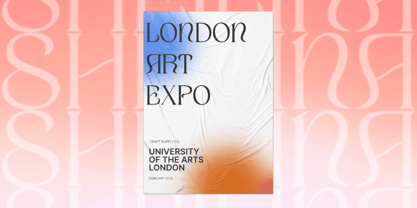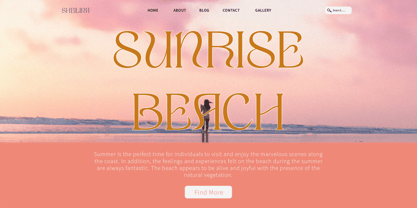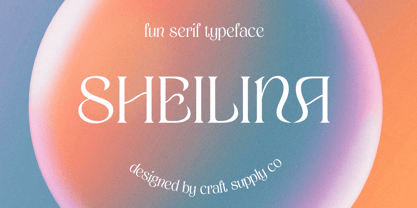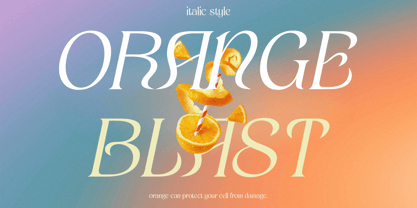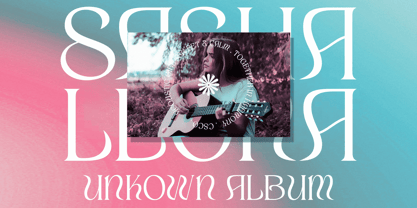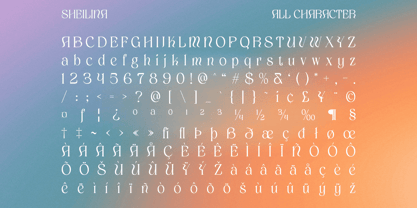
Sheilina
by Craft Supply Co
The Sheilina Font Family was designed by Trio Nazzar Saputra, Wahyu Hadi Yuana and published by Craft Supply Co. Sheilina contains 2 styles and family package options. More about this family
Sheilina Font: A Playful Take on Art Nouveau Inspired by Art Nouveau Sheilina draws inspiration from the Art Nouveau movement, embracing its flowing and organic forms. The font captures the display essence of Art Nouveau’s unique aesthetic with a modern twist. Distinctive Flow and Elegance Sheilina features a distinct flow and elegance that sets it apart. Its graceful curves and intricate details add a touch of sophistication to any design project, making it ideal for various creative endeavors. Versatile Usage With its playful yet refined style, Sheilina lends itself well to a wide range of applications. From branding and packaging to editorial design and invitations, this serif font adds charm and character to any project. Unleash Creativity with Sheilina Whether you’re designing a vintage-inspired poster or creating wedding stationery, Sheilina offers endless possibilities for unleashing your creativity. Let its unique flow and playful spirit bring your ideas to life with elegance and charm.
Designers: Trio Nazzar Saputra, Wahyu Hadi Yuana
Foundry: Craft Supply Co